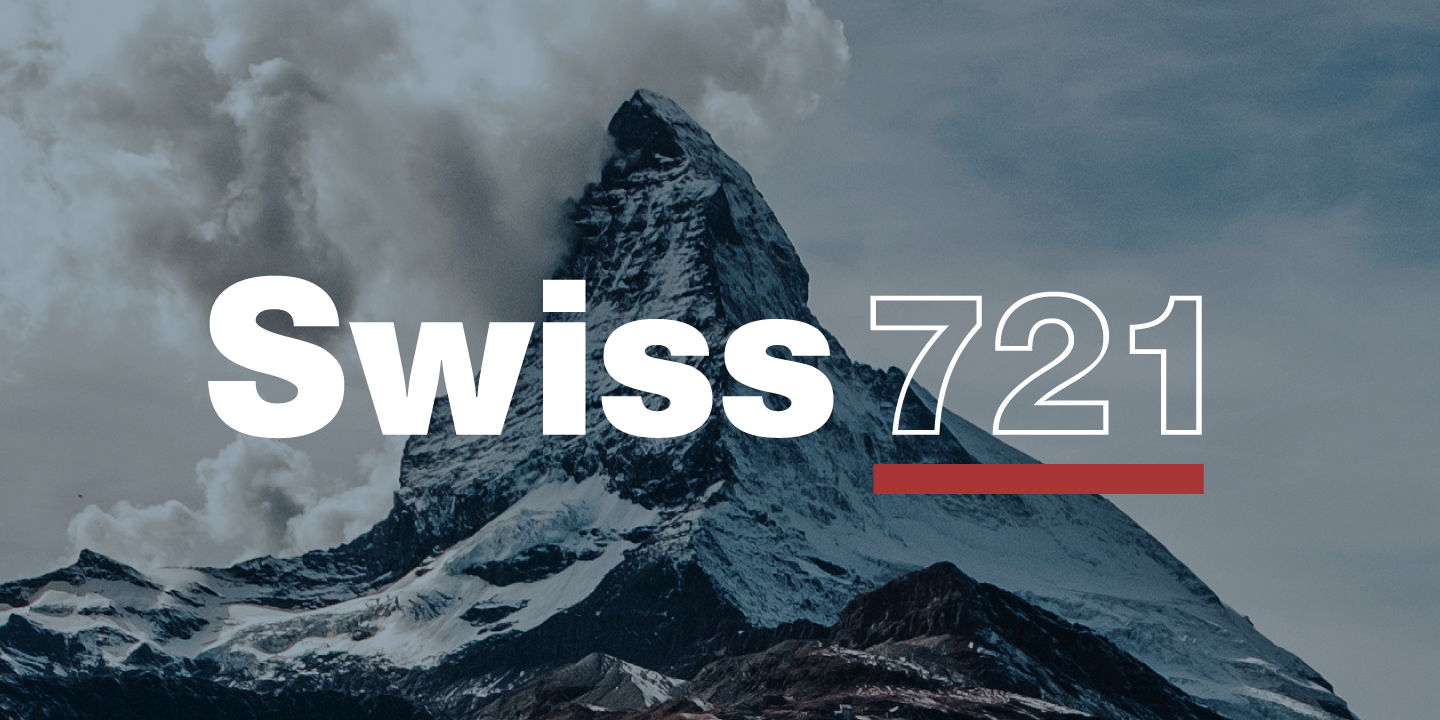
Swiss 721 WGL Font is perfect for corporate identity systems, professional business communications, clean web design projects, minimalist brand presentations, technical documentation, international signage systems, modern architectural materials, precision manufacturing branding, Swiss-inspired luxury goods, contemporary museum displays, clean technology interfaces, and global corporate communications. This timeless typeface brings Swiss design excellence to projects requiring precision, clarity, and international sophistication.
What makes Swiss 721 WGL Font so exciting is its masterful embodiment of Swiss design principles through meticulously engineered letterforms that represent the pinnacle of typographic precision and functional beauty. The font features perfectly balanced characters with mathematical proportions and neutral elegance that reflect the legendary Swiss commitment to quality, efficiency, and timeless design excellence. Its universal character conveys professionalism and reliability while maintaining crystal-clear readability across all languages and cultures, making it perfect for international brands seeking to communicate precision, quality, and the sophisticated neutrality of Swiss design heritage with authentic global appeal.
The Swiss 721 WGL Font family includes multiple professional weights and internationally-optimized variations that showcase its Swiss character while providing comprehensive multilingual support for global applications. Each variant maintains the original's precise neutrality while offering extensive options for creating clean typographic compositions that work seamlessly across diverse international markets.
Whether you're developing global brand identities, creating international marketing materials, or designing multinational communications, Swiss 721 WGL Font Free Download offers the perfect combination of Swiss precision and worldwide functionality. This exceptional typeface brings authentic Swiss design excellence to global projects, making it an indispensable choice for designers seeking typography that effectively communicates international quality, precision, and the timeless sophistication of Swiss design principles with genuine multinational reliability.